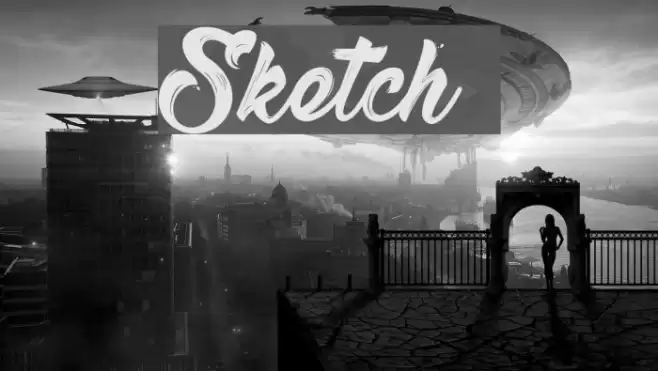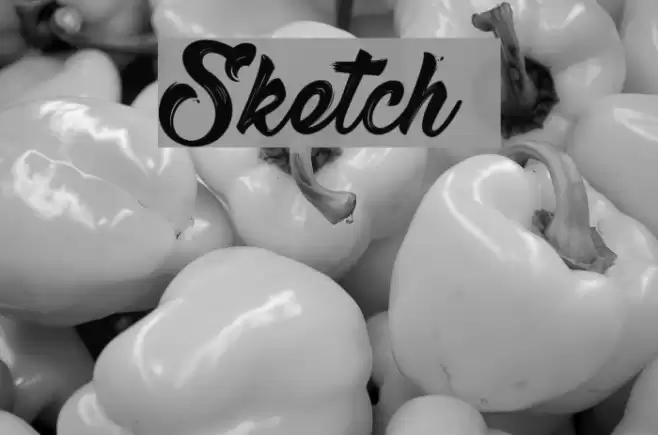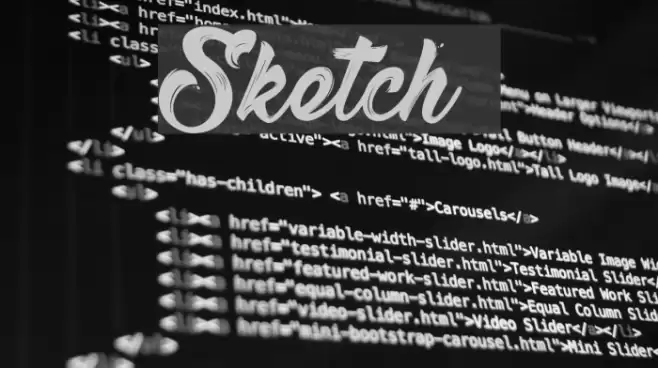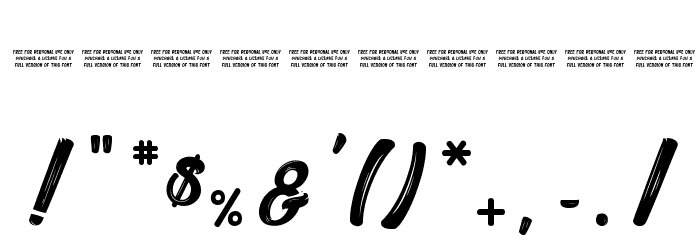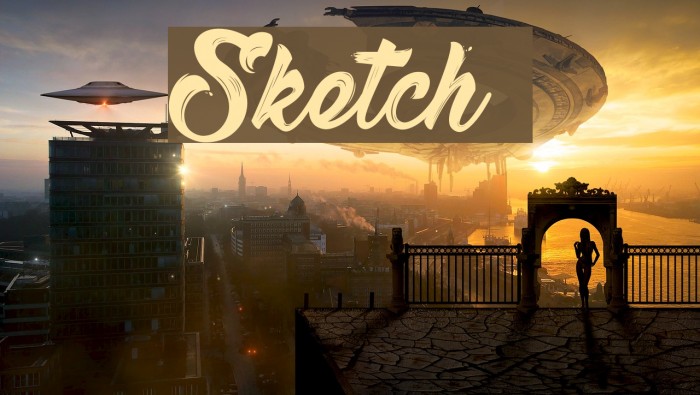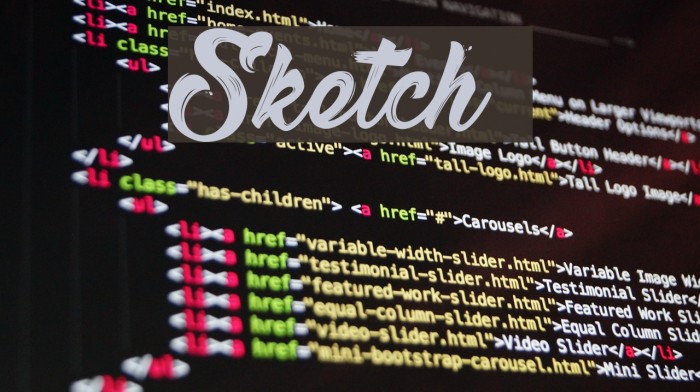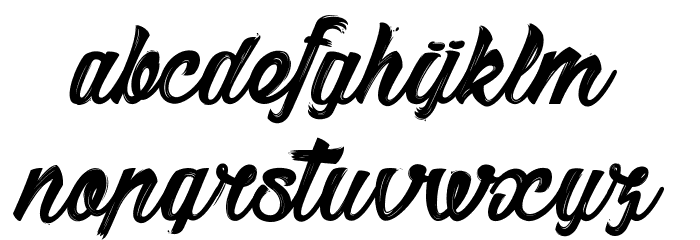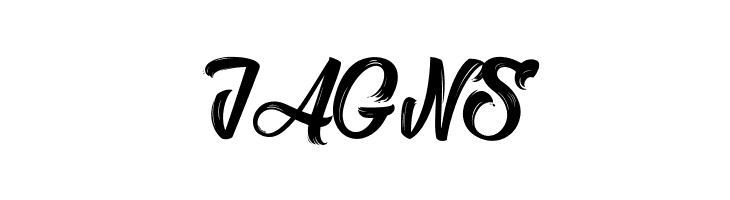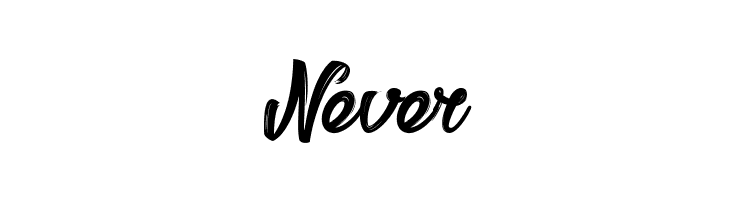
Sketch Font
This font features a bold and expressive script style, characterized by its fluid, brush-like strokes that convey a sense of movement and energy. The uppercase letters are elegantly curved with a slight slant, while the lowercase letters maintain a consistent flow, enhancing readability. The font's design incorporates a textured appearance, reminiscent of hand-painted lettering, which adds a dynamic and artistic flair. The numerals and special characters are crafted with the same attention to detail, ensuring a cohesive look across all elements. Its unique style makes it suitable for creative and eye-catching designs.
A bold, brush-style script font with dynamic, textured strokes from Uncategorized fonts.
- Proposed Projects: Ideal for branding, posters, invitations, and artistic projects that require a bold, expressive touch.